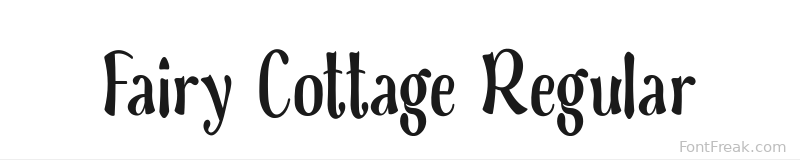
Fairy Cottage Regular
Fairy Cottage Regular, designed by Misti Hammers, is a charming display font that beautifully captures the essence of whimsy and fantasy. This decorative typeface features a unique blend of playful curves and slightly exaggerated forms, making it an excellent choice for projects that require a touch of enchantment. The stroke weight is moderately thick, creating a bold presence while maintaining an airy feel. The letters exhibit a delightful irregularity that adds to their handmade appeal, giving each character a distinct personality. The spacing is generous, allowing for easy readability even at smaller sizes, while decorative elements like playful serifs enhance the overall whimsical aesthetic.
This font is particularly well-suited for a variety of creative applications. It shines in wedding invitations, where its fairy-tale quality can set a romantic tone. Additionally, it works wonderfully for children's book covers, lending a sense of magic and adventure to the stories within. Fairy Cottage Regular is also ideal for crafting eye-catching restaurant menus that convey a cozy, rustic vibe. Furthermore, its enchanting style makes it perfect for branding projects aimed at boutiques or artisanal shops, where a unique identity is crucial.
The target audience for this font includes graphic designers, small business owners, and content creators looking to elevate their visual storytelling. Whether you're designing for print or digital platforms, this font can bring a unique flair to your projects.
What sets Fairy Cottage Regular apart is its ability to evoke a sense of wonder while remaining versatile across different mediums. The combination of its whimsical design and practical usability makes it a standout choice for anyone seeking to infuse their work with a magical touch. Don't miss out on the opportunity to add this enchanting typeface to your collection; explore the Fairy Cottage Regular font free download today.